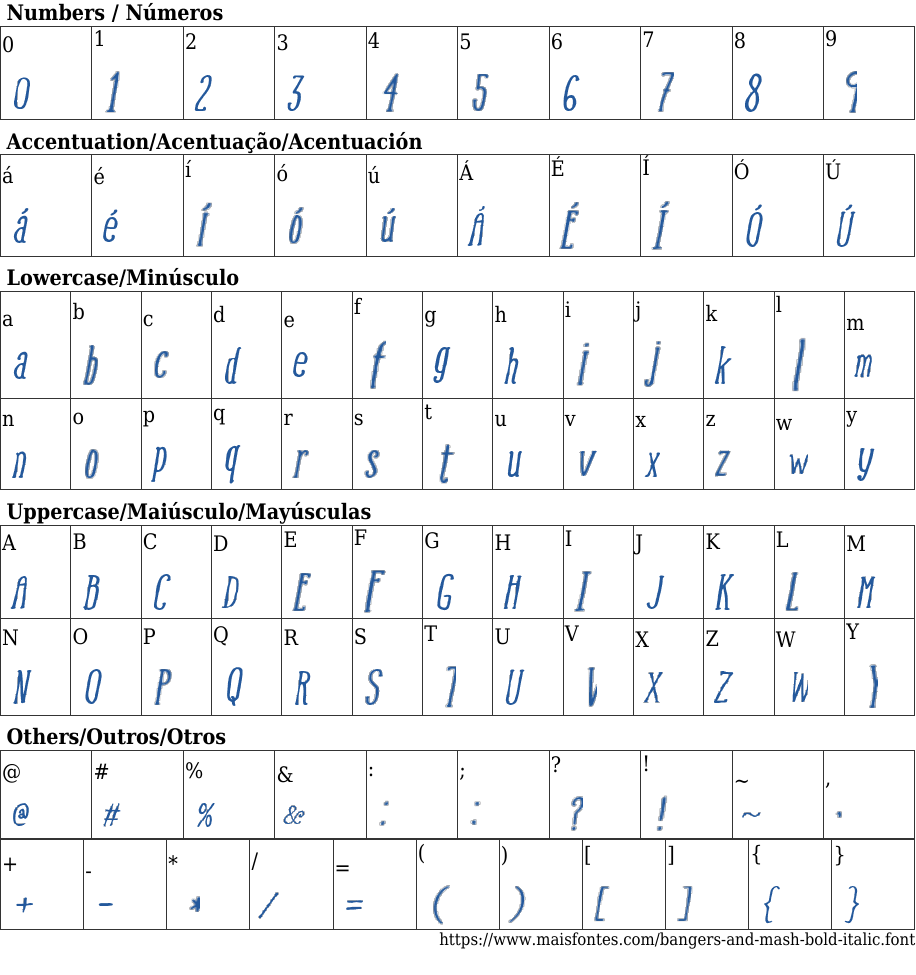
Bangers And Mash Font . Bangers and mash regular font free download. Thousands of designers (famous or not) use the image font detection system to find a font or similar free fonts from an image. A great choice for highlighting your design elements. Bangers and mash font by simon stratford. Thousands of designers (famous or not) use the image font detection system to find a font or similar free fonts from an image. I named it after the great british institution that is bangers ‘n’ mash, also known as sausages and. If you're designing a whimsical greeting card, branding, invitation, a cheerful poster, or simply want to infuse your project with warm english. Bangers and mash is my new handmade serif font. I named it after the great british institution that is bangers ‘n’ mash, also known as sausages and mash. Bangers and mash is my new handmade serif font. I really like the characteristics of ink on paper, so i created bangers and mash with a tombow pen and paper.it's a fun typeface with a tiny touch. Get to know the bangers and mash font family and download it for free to use in your project.
Thousands of designers (famous or not) use the image font detection system to find a font or similar free fonts from an image. I named it after the great british institution that is bangers ‘n’ mash, also known as sausages and. Thousands of designers (famous or not) use the image font detection system to find a font or similar free fonts from an image. I named it after the great british institution that is bangers ‘n’ mash, also known as sausages and mash. Bangers and mash is my new handmade serif font. I really like the characteristics of ink on paper, so i created bangers and mash with a tombow pen and paper.it's a fun typeface with a tiny touch. Bangers and mash font by simon stratford. Get to know the bangers and mash font family and download it for free to use in your project. Bangers and mash regular font free download. If you're designing a whimsical greeting card, branding, invitation, a cheerful poster, or simply want to infuse your project with warm english.
Bangers And Mash Font Bangers and mash is my new handmade serif font. Get to know the bangers and mash font family and download it for free to use in your project. Thousands of designers (famous or not) use the image font detection system to find a font or similar free fonts from an image. If you're designing a whimsical greeting card, branding, invitation, a cheerful poster, or simply want to infuse your project with warm english. Bangers and mash is my new handmade serif font. I named it after the great british institution that is bangers ‘n’ mash, also known as sausages and mash. I really like the characteristics of ink on paper, so i created bangers and mash with a tombow pen and paper.it's a fun typeface with a tiny touch. Bangers and mash font by simon stratford. A great choice for highlighting your design elements. I named it after the great british institution that is bangers ‘n’ mash, also known as sausages and. Thousands of designers (famous or not) use the image font detection system to find a font or similar free fonts from an image. Bangers and mash is my new handmade serif font. Bangers and mash regular font free download.
Bangers and Mash Font by simonok on Envato Elements Bangers and mash Bangers And Mash Font Bangers and mash font by simon stratford. Thousands of designers (famous or not) use the image font detection system to find a font or similar free fonts from an image. A great choice for highlighting your design elements. Bangers and mash is my new handmade serif font. If you're designing a whimsical greeting card, branding, invitation, a cheerful poster, or. Bangers And Mash Font.
Bangers and Mash font on Behance Bangers And Mash Font Thousands of designers (famous or not) use the image font detection system to find a font or similar free fonts from an image. I really like the characteristics of ink on paper, so i created bangers and mash with a tombow pen and paper.it's a fun typeface with a tiny touch. A great choice for highlighting your design elements. I. Bangers And Mash Font.
Bangers and Mash font on Behance Bangers And Mash Font Bangers and mash is my new handmade serif font. Bangers and mash regular font free download. Thousands of designers (famous or not) use the image font detection system to find a font or similar free fonts from an image. Thousands of designers (famous or not) use the image font detection system to find a font or similar free fonts from. Bangers And Mash Font.
Bangers Font 1001 Free Fonts Bangers And Mash Font A great choice for highlighting your design elements. Bangers and mash font by simon stratford. I named it after the great british institution that is bangers ‘n’ mash, also known as sausages and mash. Bangers and mash regular font free download. Bangers and mash is my new handmade serif font. I really like the characteristics of ink on paper, so. Bangers And Mash Font.
Bangers Font Download Bangers And Mash Font I named it after the great british institution that is bangers ‘n’ mash, also known as sausages and. Bangers and mash font by simon stratford. Thousands of designers (famous or not) use the image font detection system to find a font or similar free fonts from an image. I really like the characteristics of ink on paper, so i created. Bangers And Mash Font.
复古怀旧古怪的英文手写衬线字体Bangers&Mash 艺字网 Bangers And Mash Font I named it after the great british institution that is bangers ‘n’ mash, also known as sausages and mash. Thousands of designers (famous or not) use the image font detection system to find a font or similar free fonts from an image. If you're designing a whimsical greeting card, branding, invitation, a cheerful poster, or simply want to infuse your. Bangers And Mash Font.
Bangers and Mash PRO font free download • Bangers And Mash Font Thousands of designers (famous or not) use the image font detection system to find a font or similar free fonts from an image. Get to know the bangers and mash font family and download it for free to use in your project. I really like the characteristics of ink on paper, so i created bangers and mash with a tombow. Bangers And Mash Font.